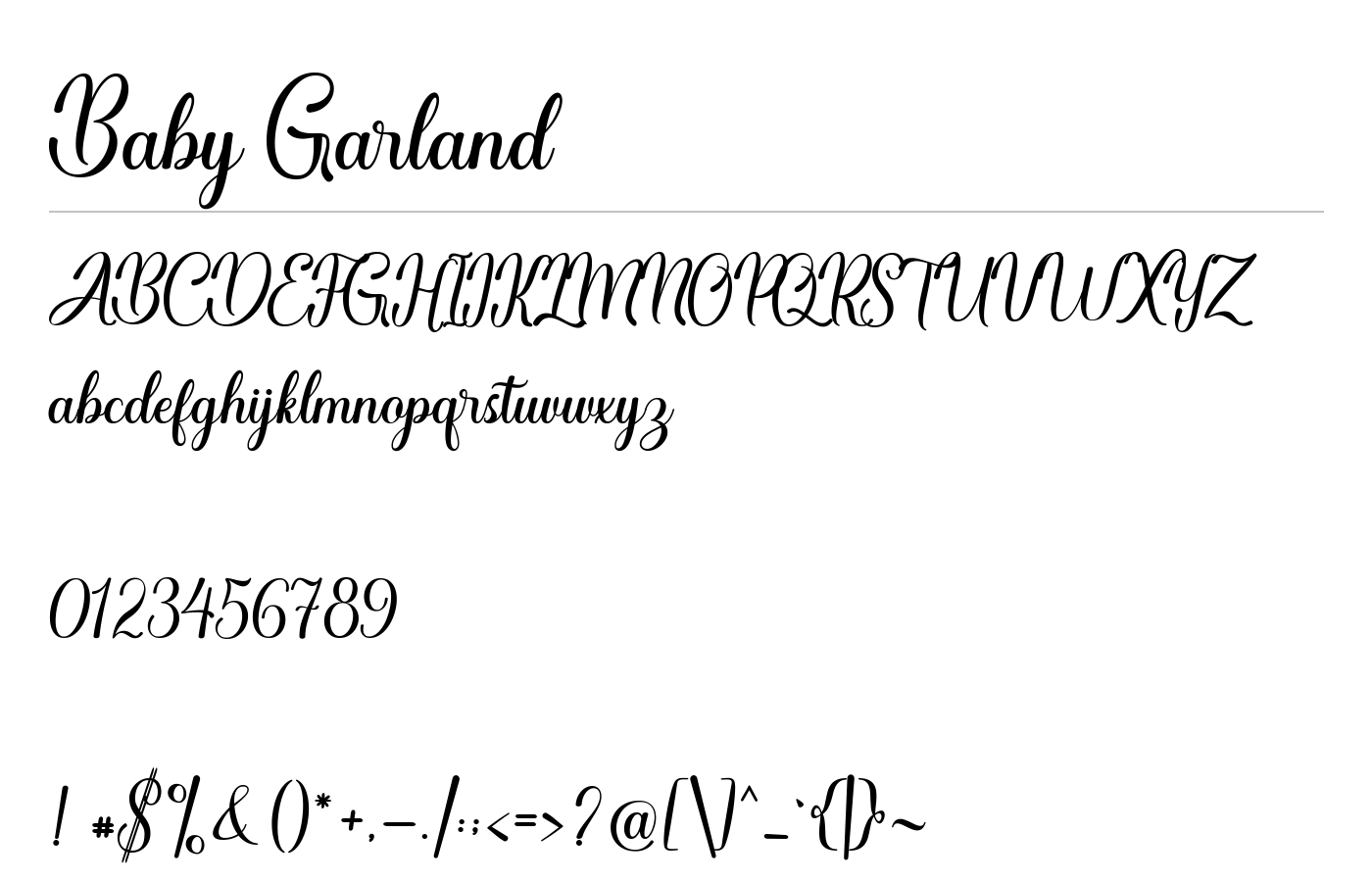
Baby Garland is an elegant script font with graceful, flowing letterforms that combine a delicate thin stroke with soft, rounded curves. Its slightly condensed style and consistent stroke weight give it a refined yet approachable feel, making it perfect for invitations, branding, and any design requiring a touch of sophistication and charm. This font works wonderfully in projects that want to convey a sense of warmth, beauty, and personalized elegance.
Baby Garland Font
About Baby Garland Font
| Font family | Baby Garland Font |
| Designer | Rotterlab Studio |